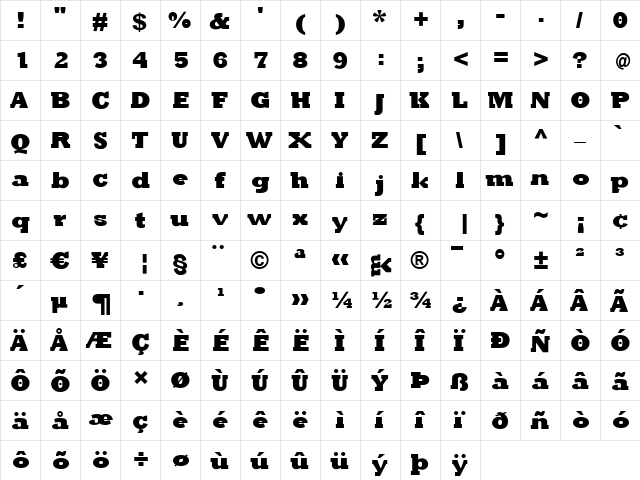
KleinSlabserifBlaxX Regular
Design Context for KleinSlabserifBlaxX Typeface
KleinSlabserifBlaxX combines the readability of serif typography with the visual weight of a slab construction, resulting in a typeface that feels both authoritative and approachable.
Works well in editorial design, news publishing, impactful branding, and poster typography.
Pro Tip: Try KleinSlabserifBlaxX set tight in headlines for a classic editorial feel. Its slab serifs create strong horizontal rhythm that anchors a page layout.